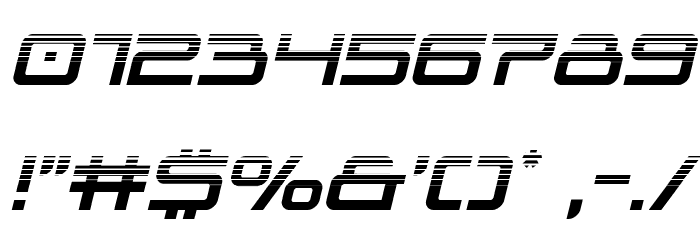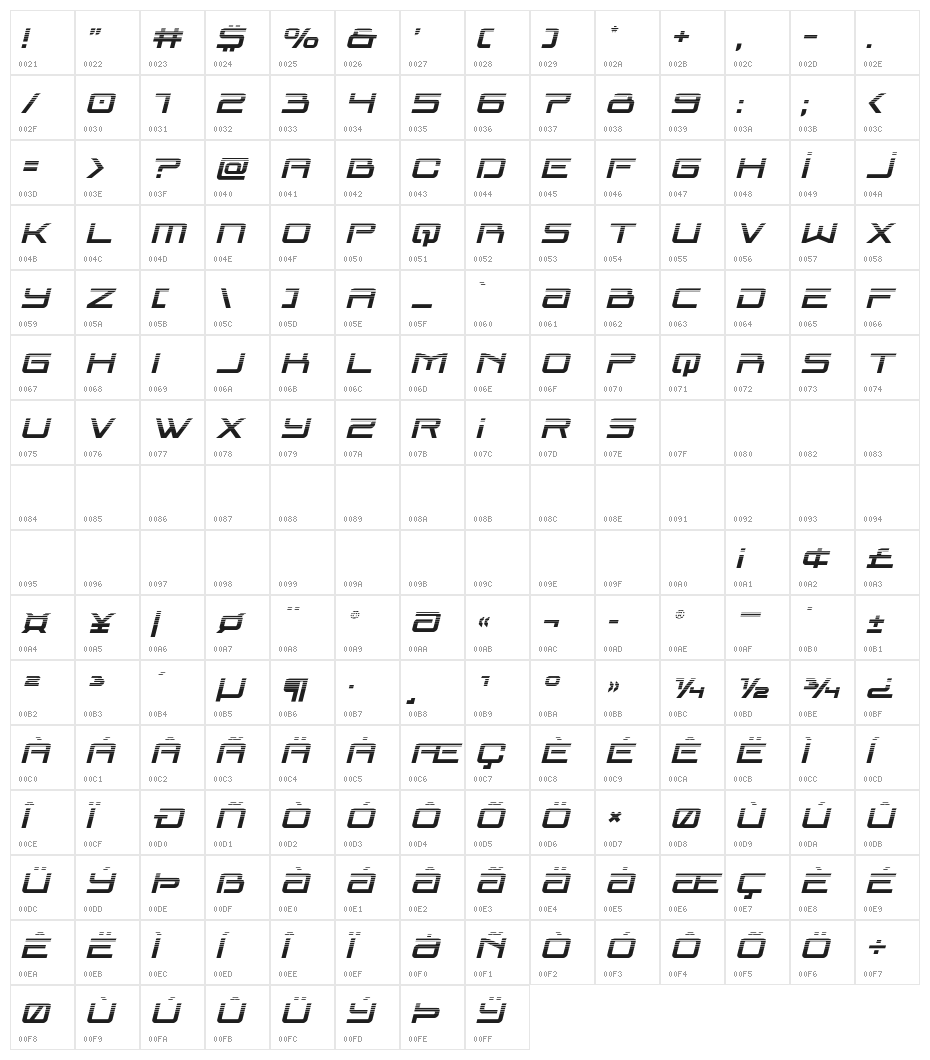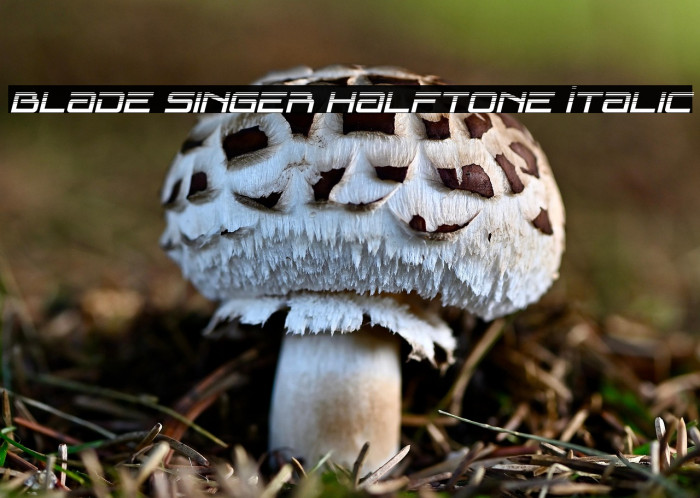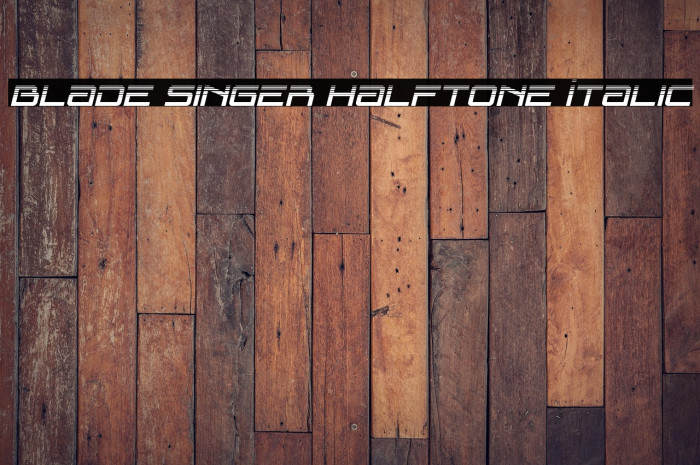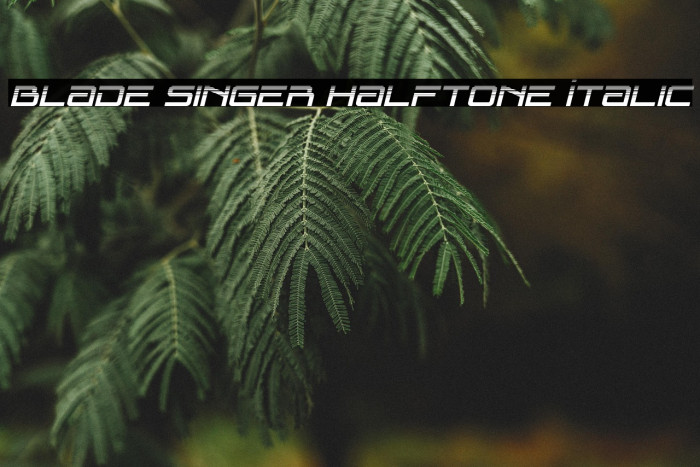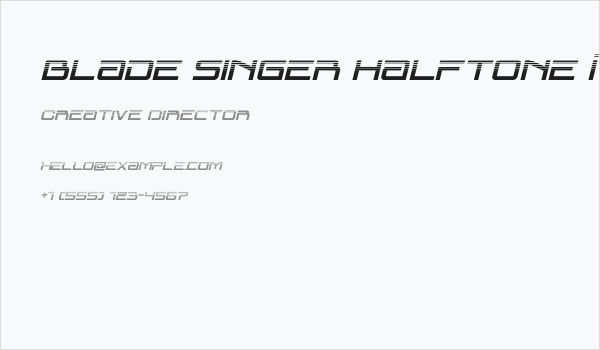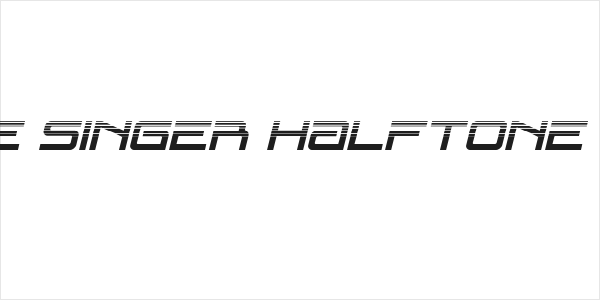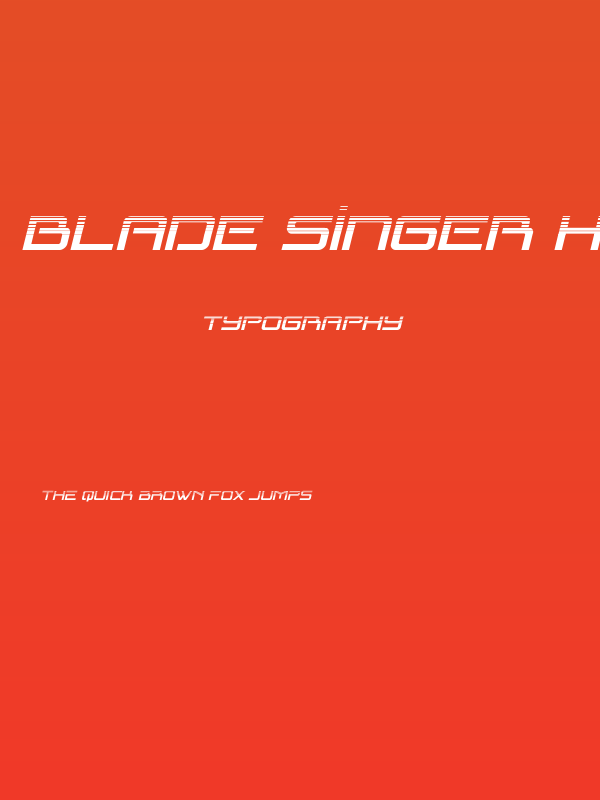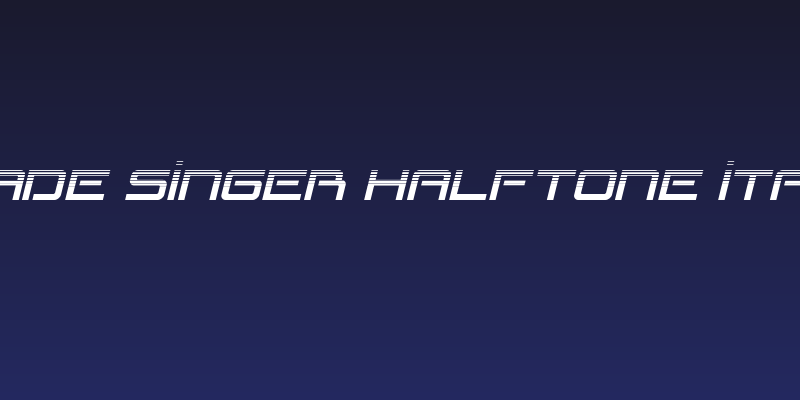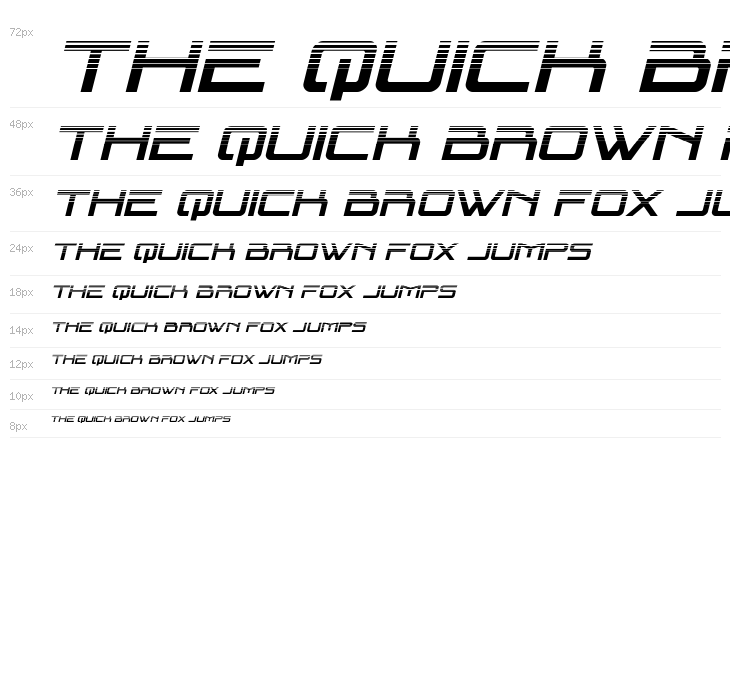
Blade Singer Halftone Italic Font
Blade Singer Halftone Italic Description
This font features a futuristic and dynamic design, characterized by its halftone effect and italicized style. The letters are constructed with a series of parallel lines that create a sense of movement and energy. The uppercase and lowercase letters maintain a consistent geometric form, while the numbers and special characters follow the same design principles. The overall appearance is sleek and modern, making it suitable for projects that require a cutting-edge and technological feel. The font's unique style is both eye-catching and versatile, allowing it to be used in a variety of creative applications.
| Proposed Projects | Ideal for sci-fi themed projects, tech branding, video game titles, and futuristic posters. |